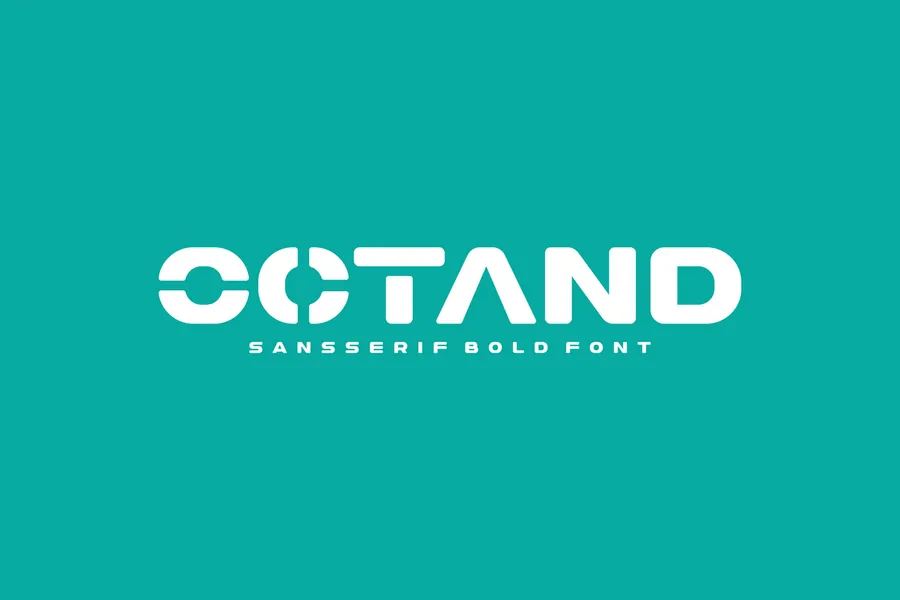
Octand – Sans Serif Round & Bold Font
ntroducing our new product Octand Font – Modern Font
Octand Font- Modern Font is a bold and authentic display font. The font is suitable for any branding project like logo, esport, and many more. outstanding in a wide range of contexts.